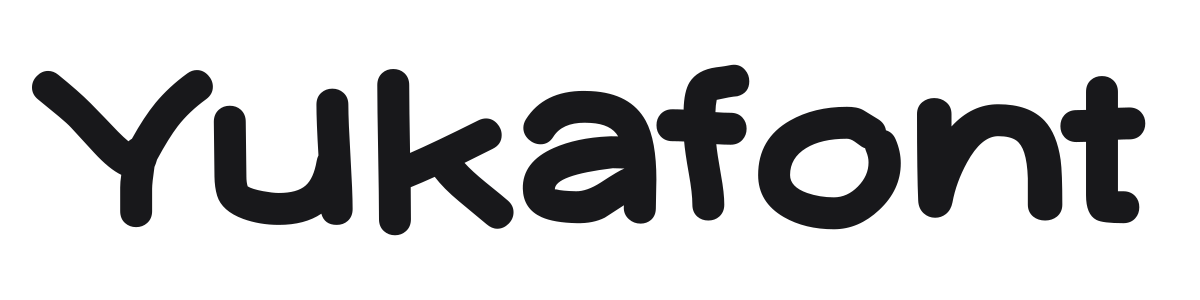
Yukafont
Yukafont is a thick, rounded handwritten face from Billy Argel with bold strokes that feel loose and cheerful, like lettering done with a chunky felt-tip pen. The playful, friendly character keeps things casual without sacrificing legibility, making it a solid pick for headlines, packaging, children's content, and branding that needs to feel approachable and warm.